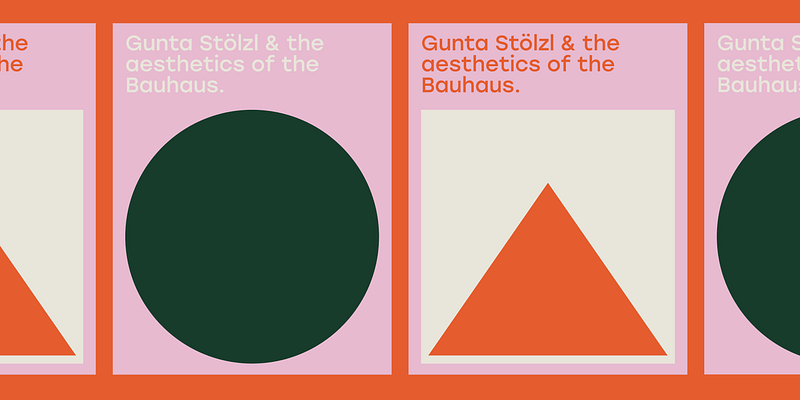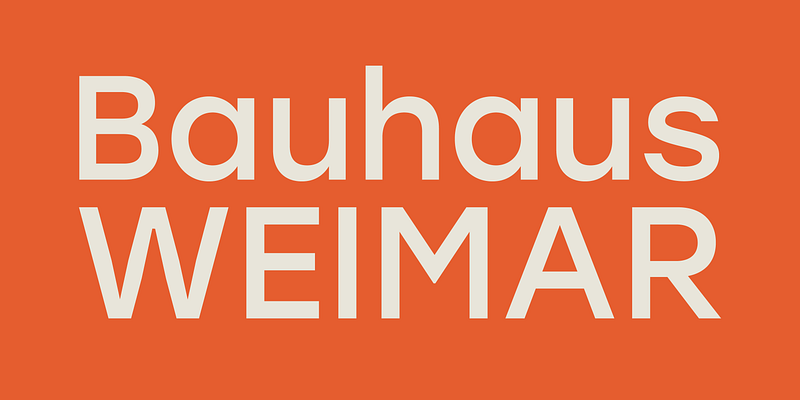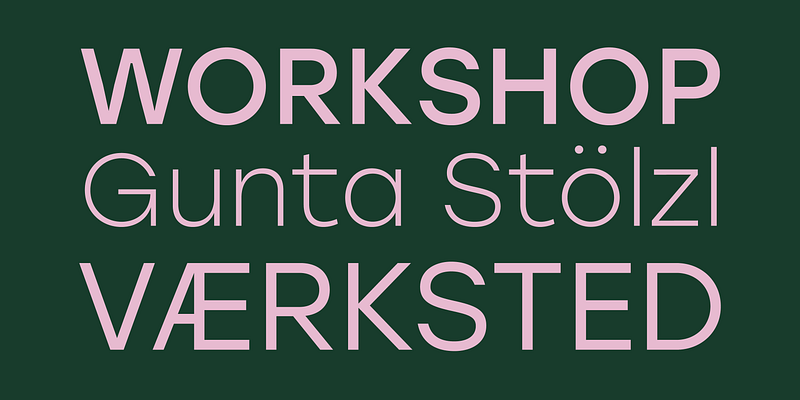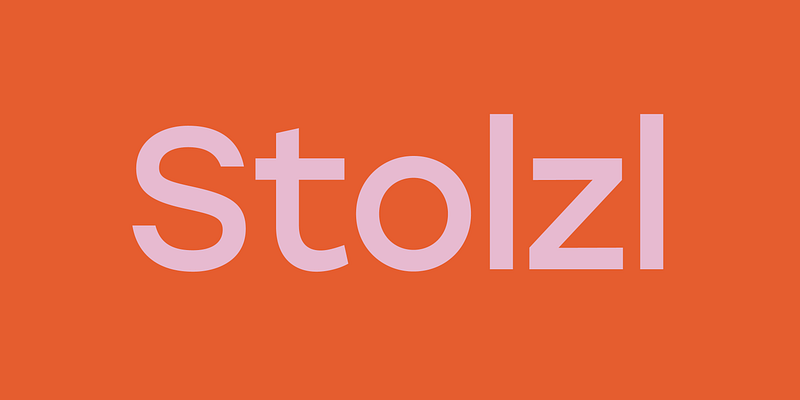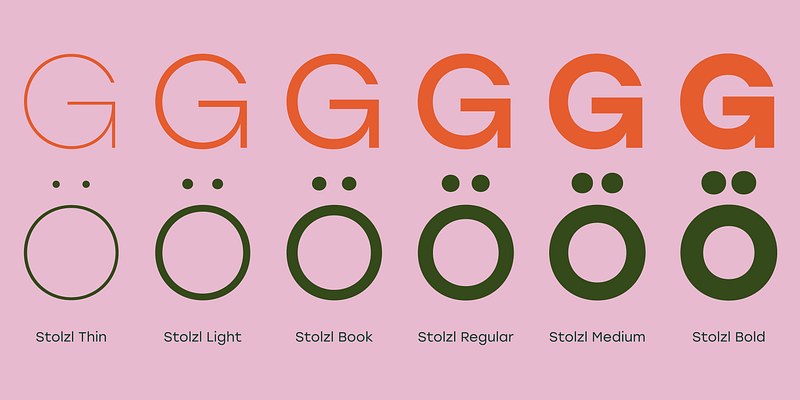
Stolzl is the text companion of the display family, Stolzl Display, which was optically tailored to perform as a functional addition to this concept steered font collection. Stolzl Text is a modernist interpretation of the first release, stripped of the primary stylised attributes, it is highly readable in print and on screen. Designed to perform at various sizes, Stolzl Text is a great addition to the type collection. As well as Latin-based languages, the type family also supports Cyrillic. Other details include six weights, 486 characters, manually edited kerning and Opentype features. For a display alternative to Stolzl, visit Stolzl Display.